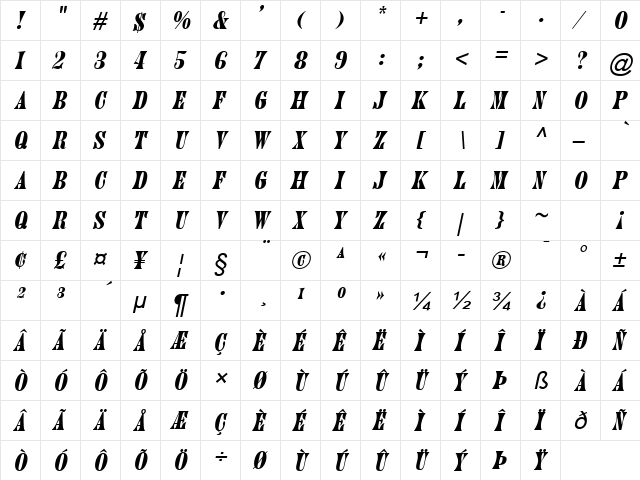
June Italic
Design Context for June Typeface
June takes a measured approach to typography — its balanced proportions and neutral character make it a reliable workhorse for both digital and print work. The dynamic lean of this cut emphasises speed and emphasis in any layout.